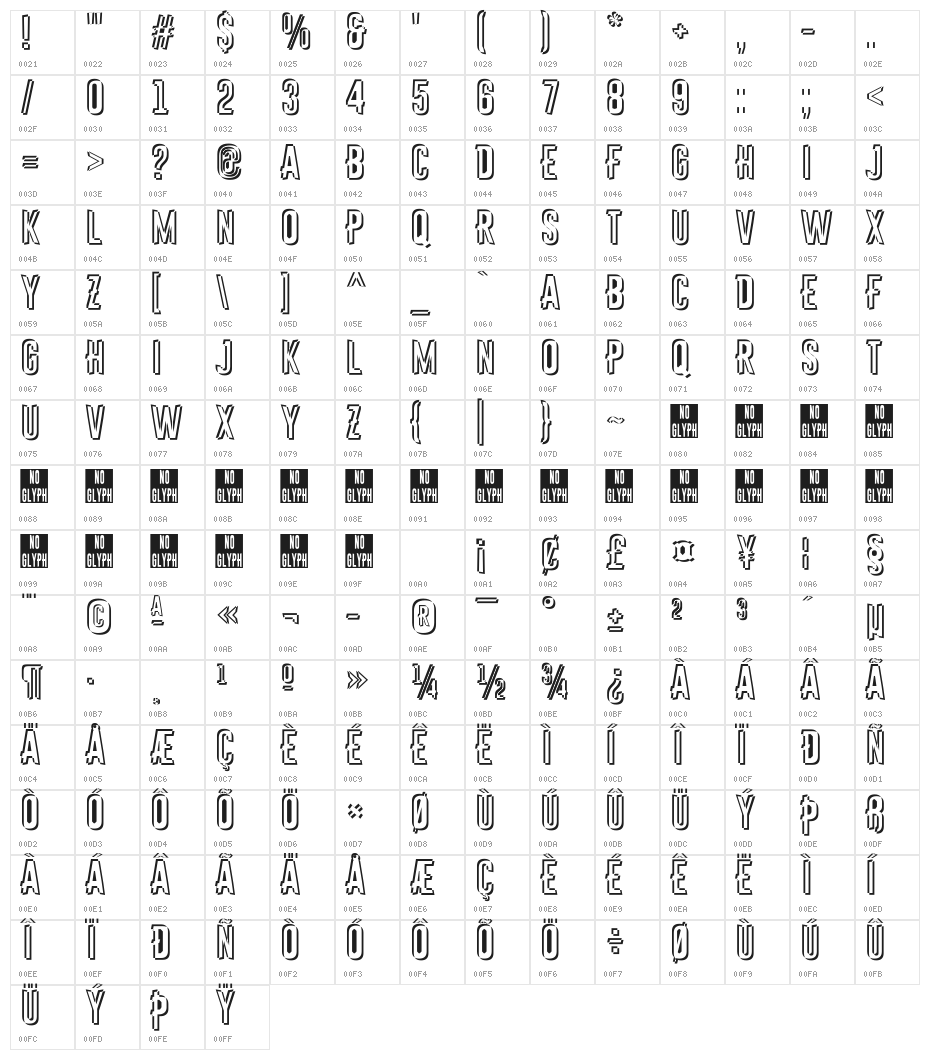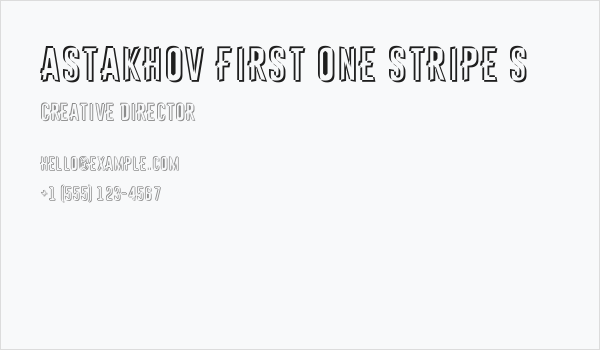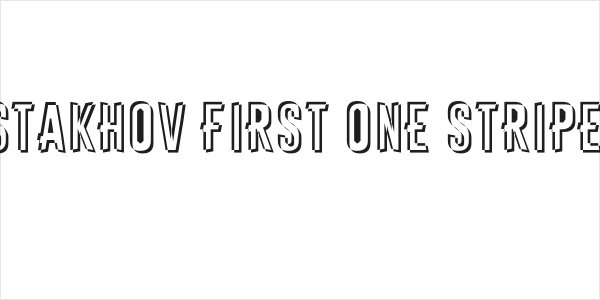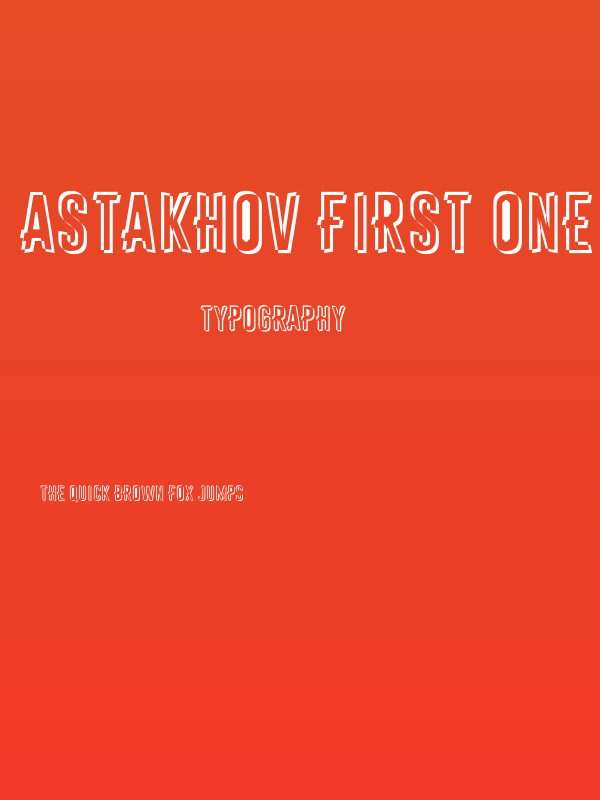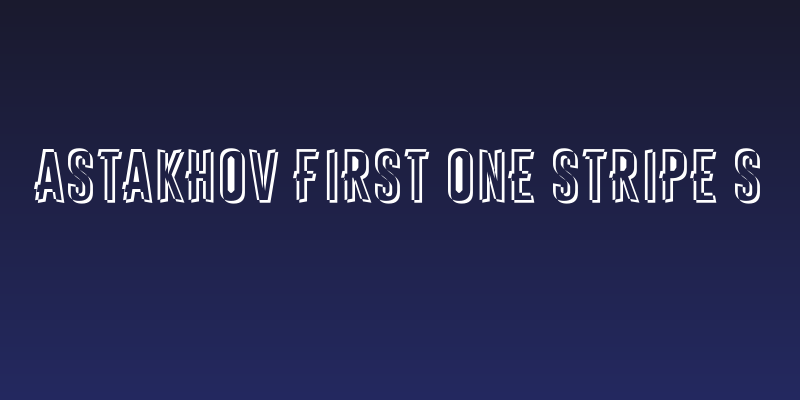
Astakhov First One Stripe S Font
Astakhov First One Stripe S Description
This font features a bold, decorative style with a unique striped pattern running through each character. The uppercase and lowercase letters maintain a consistent design, emphasizing vertical lines that create a sense of movement and depth. The numbers and special characters follow the same aesthetic, ensuring a cohesive look across all glyphs. The font's design is reminiscent of vintage signage, offering a modern twist with its striped detailing. Its bold presence makes it suitable for attention-grabbing headlines and display purposes.